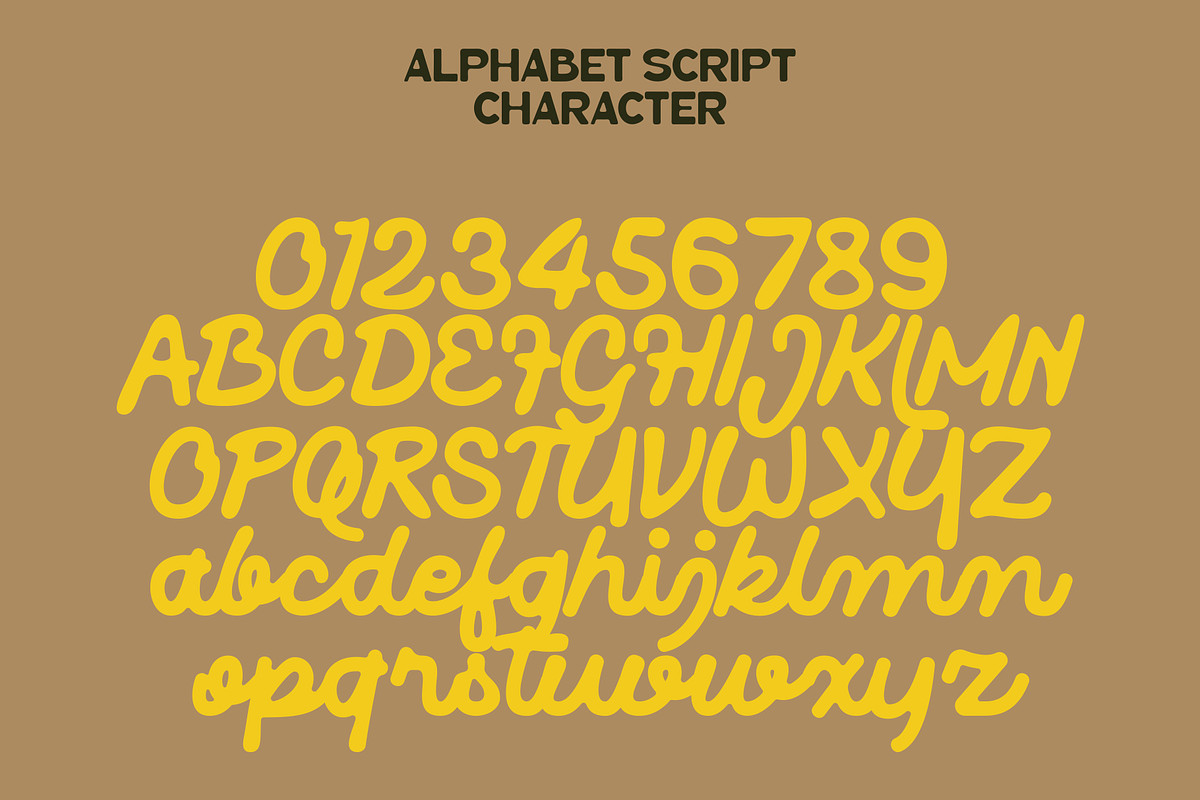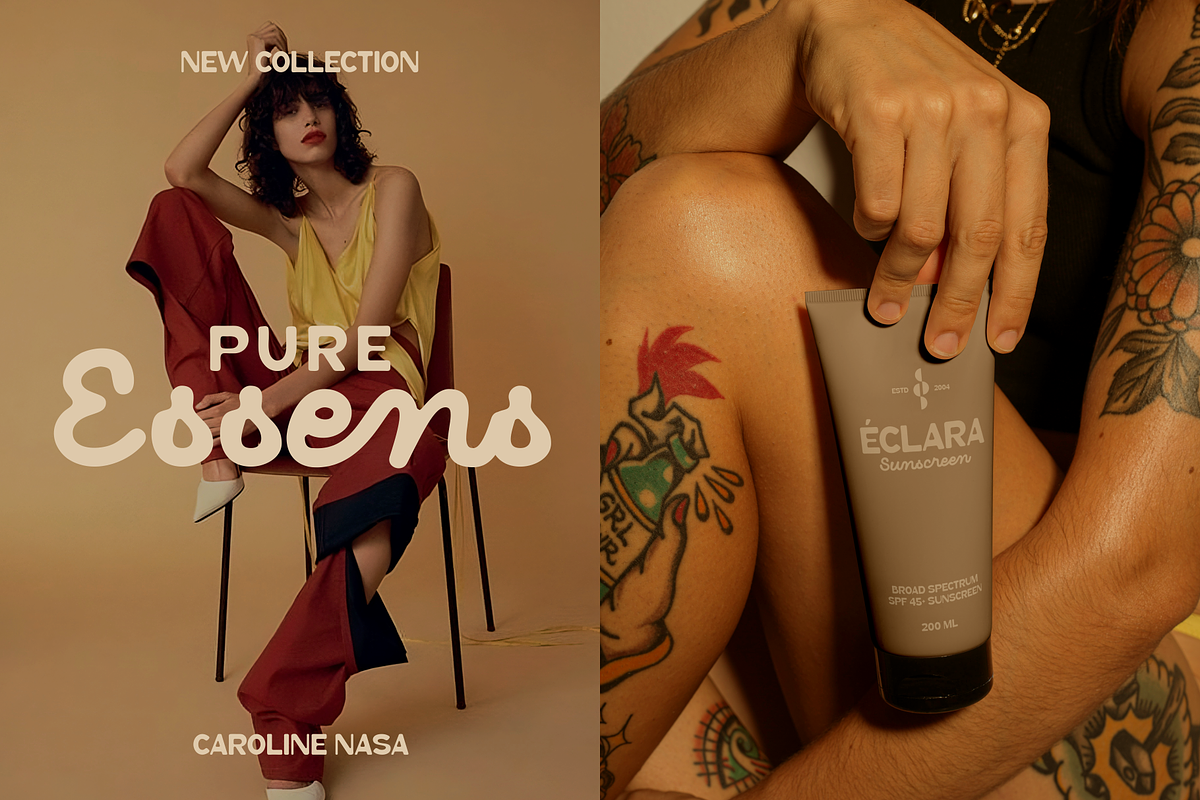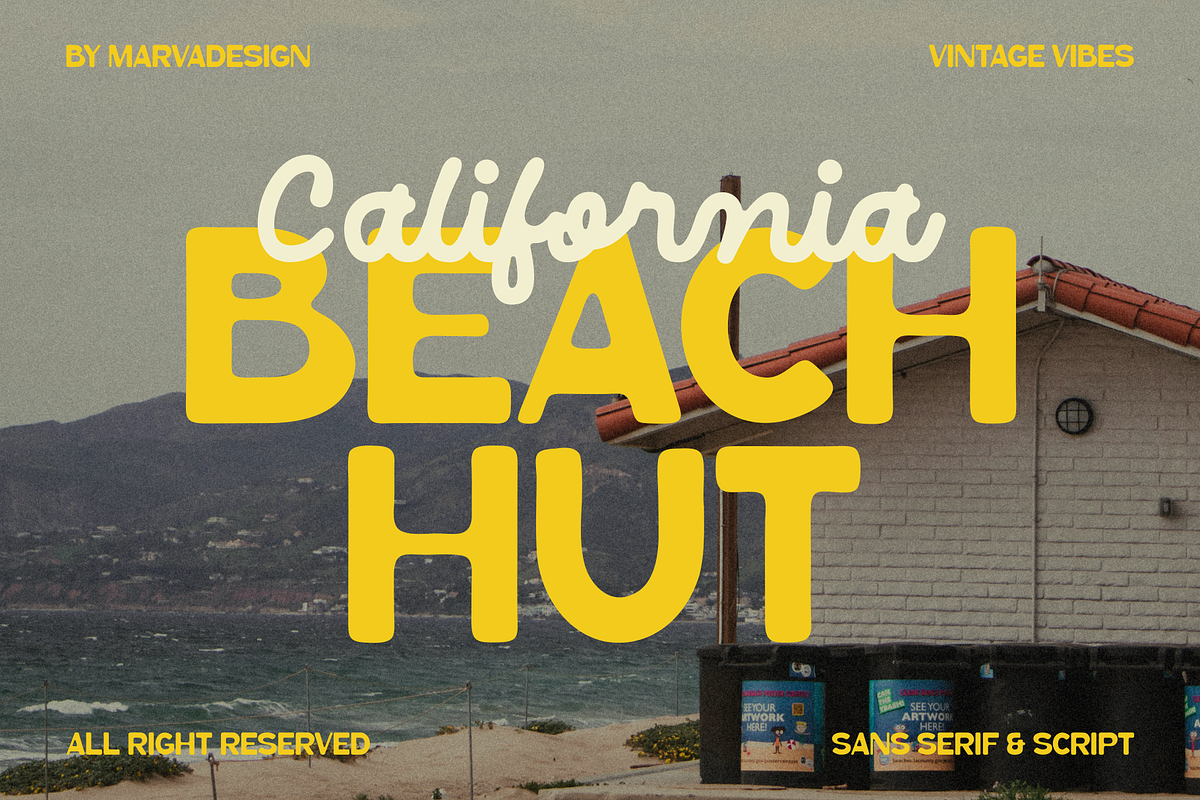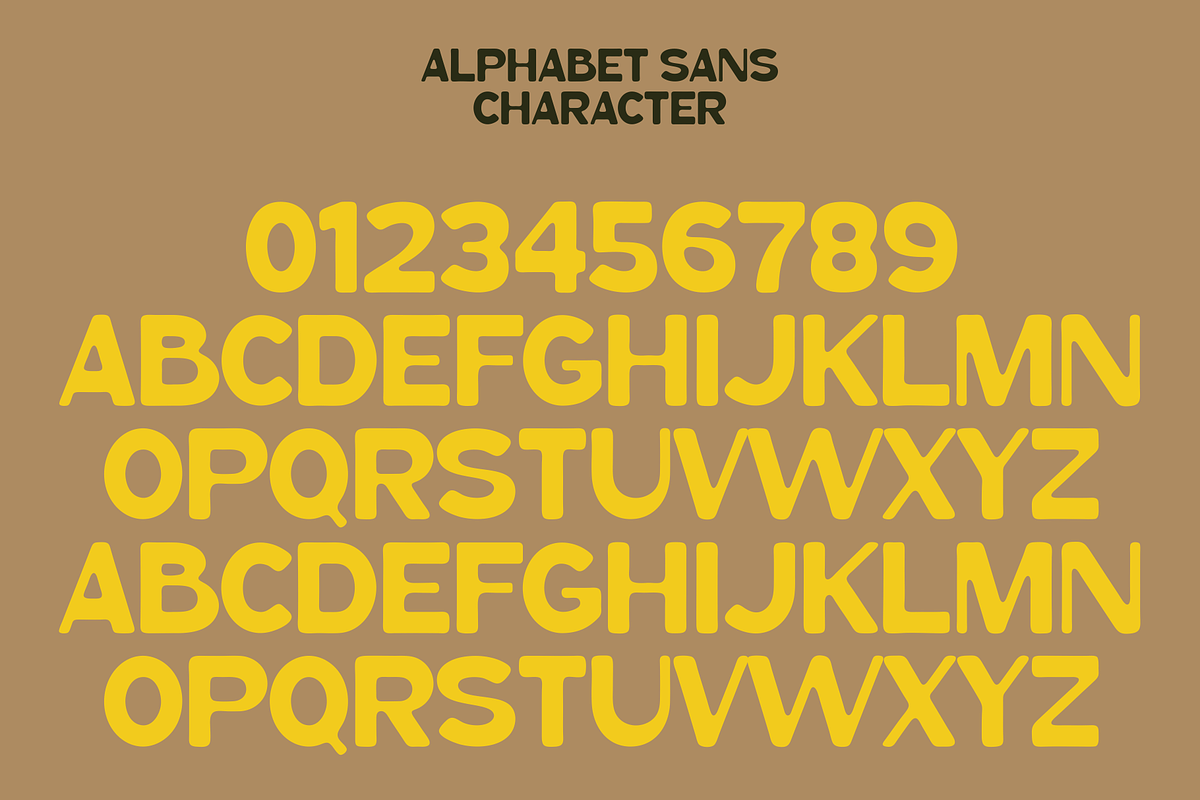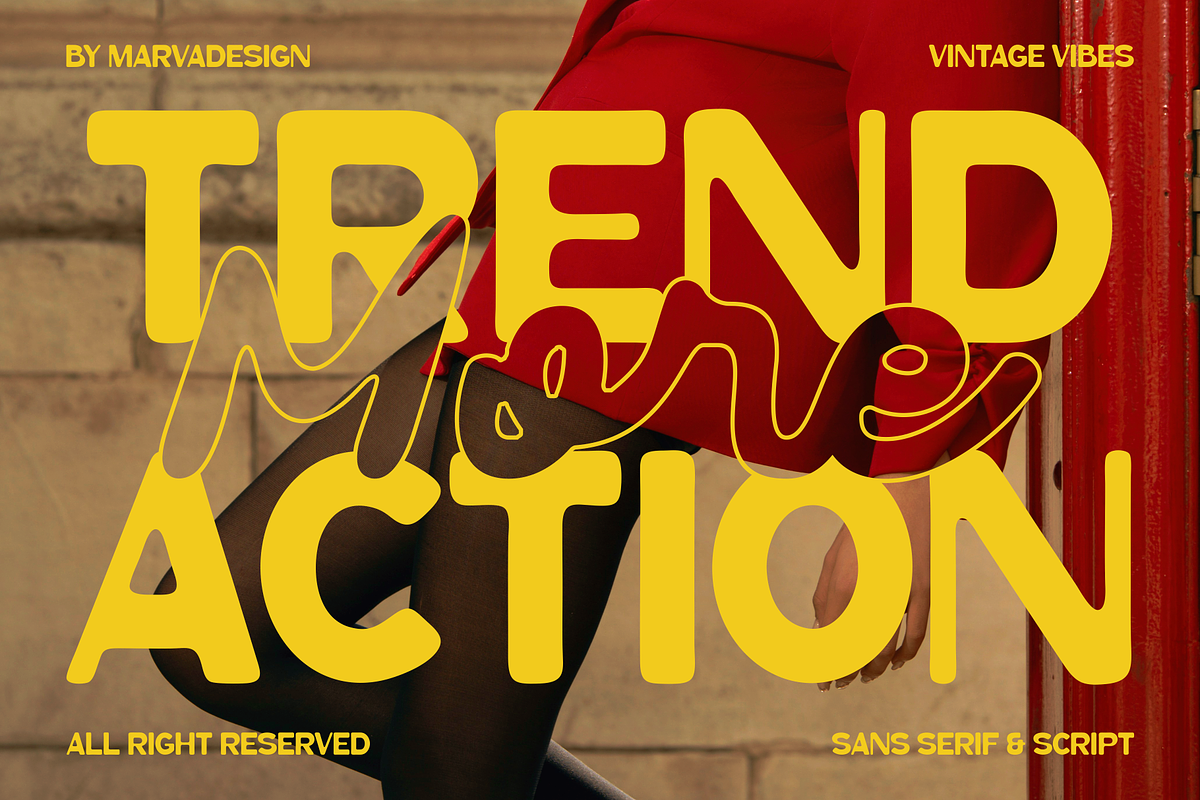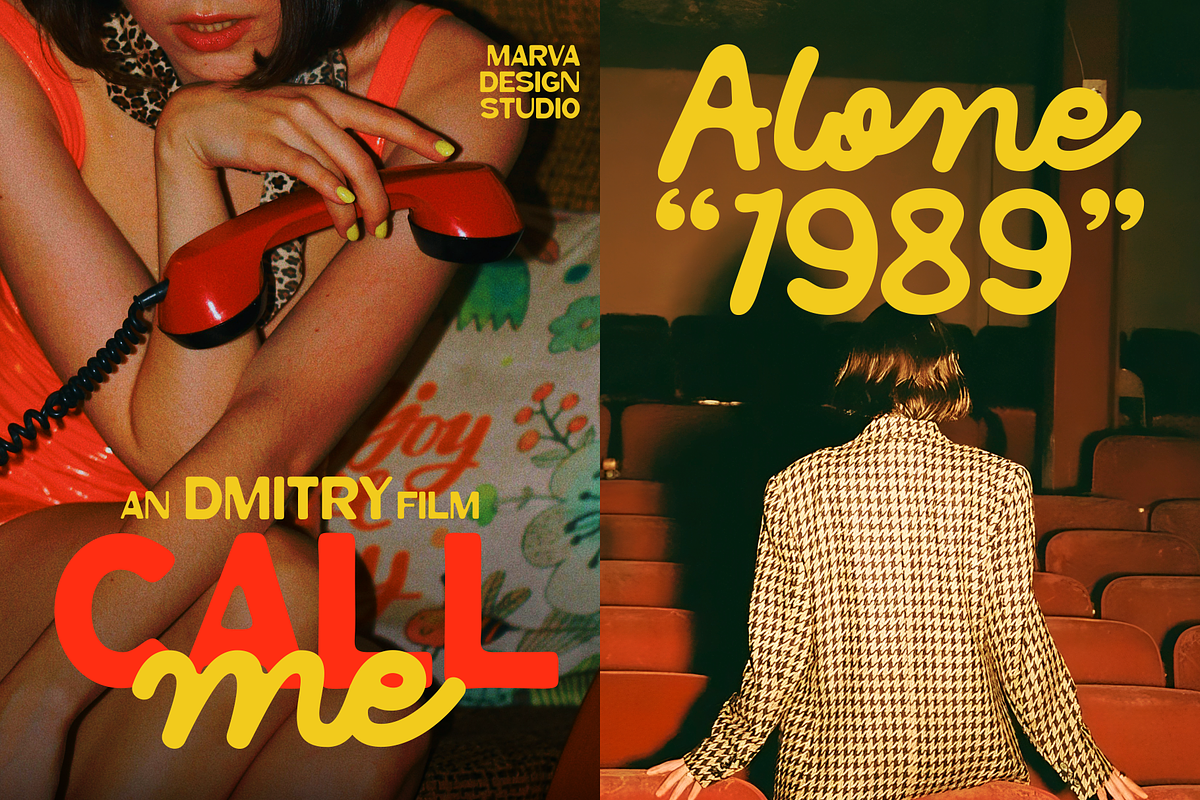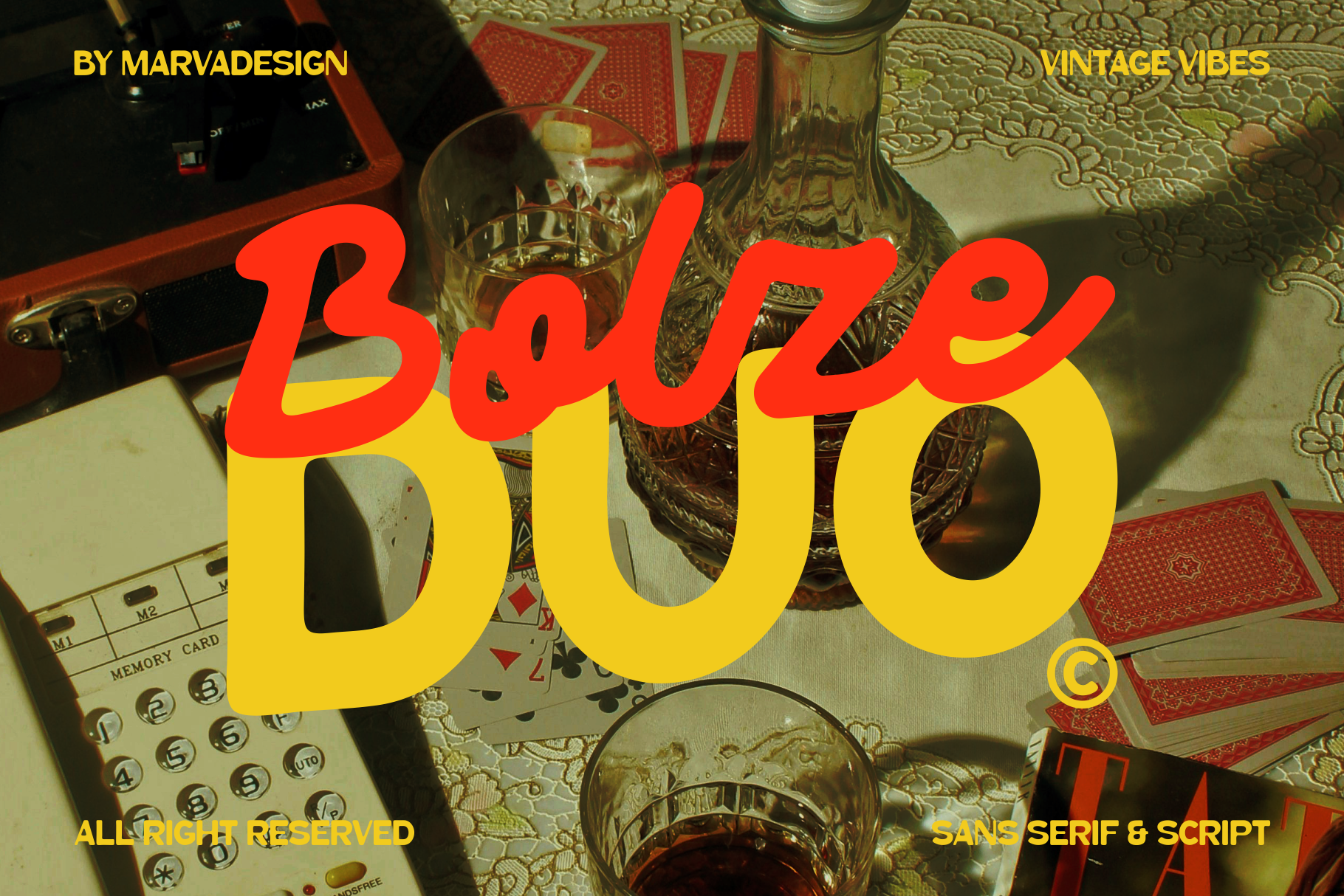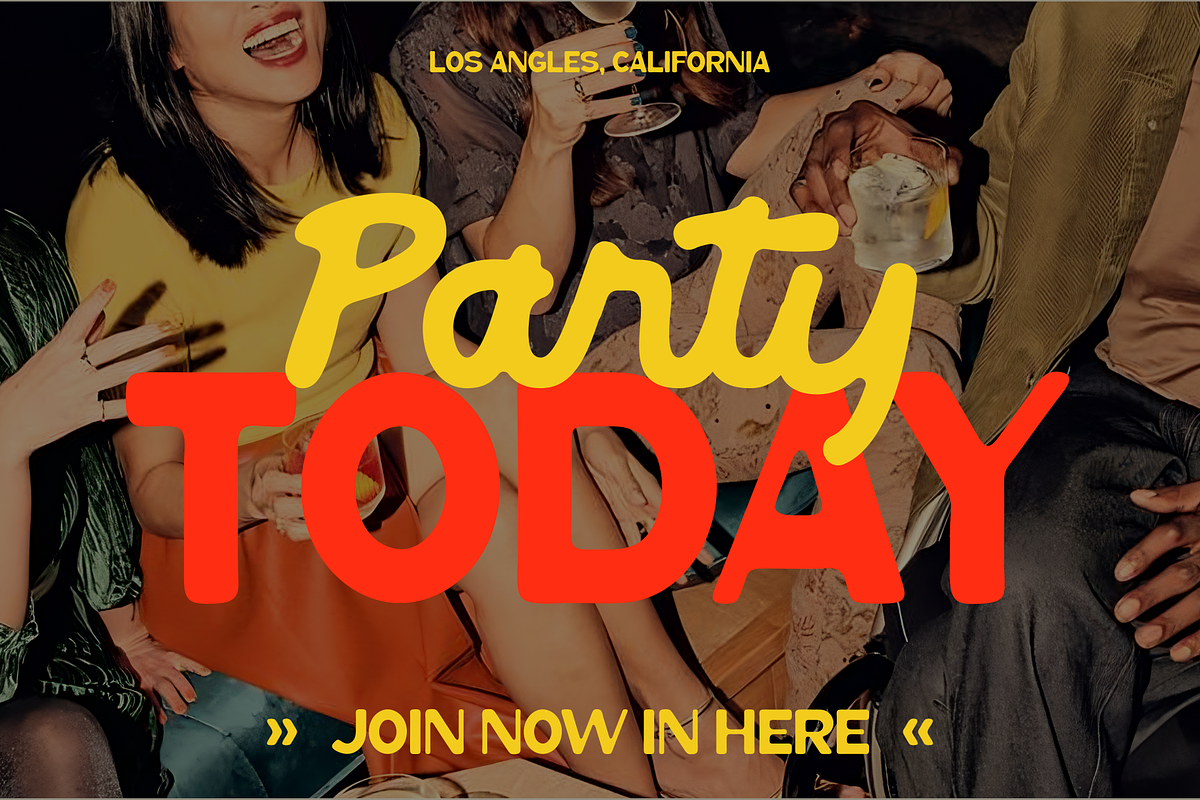
Bolze - Duo Font
Bolze is a bold and expressive font duo featuring two complementary styles Sans Serif and Script. This typeface captures a strong vintage vibe with a touch of modern playfulness, making it perfect for retro branding, posters, and lifestyle designs. The Sans Serif version delivers a solid and rounded appearance, giving your typography a confident and friendly tone. Meanwhile, the Script style adds fluidity and movement through its smooth, handwritten curves perfect for creating dynamic wordmarks or accent text. When combined, these two styles create a striking visual harmony that feels nostalgic yet contemporary. Whether used for logos, packaging, event posters, or social media titles
The styles include
- Sans Serif
- Script